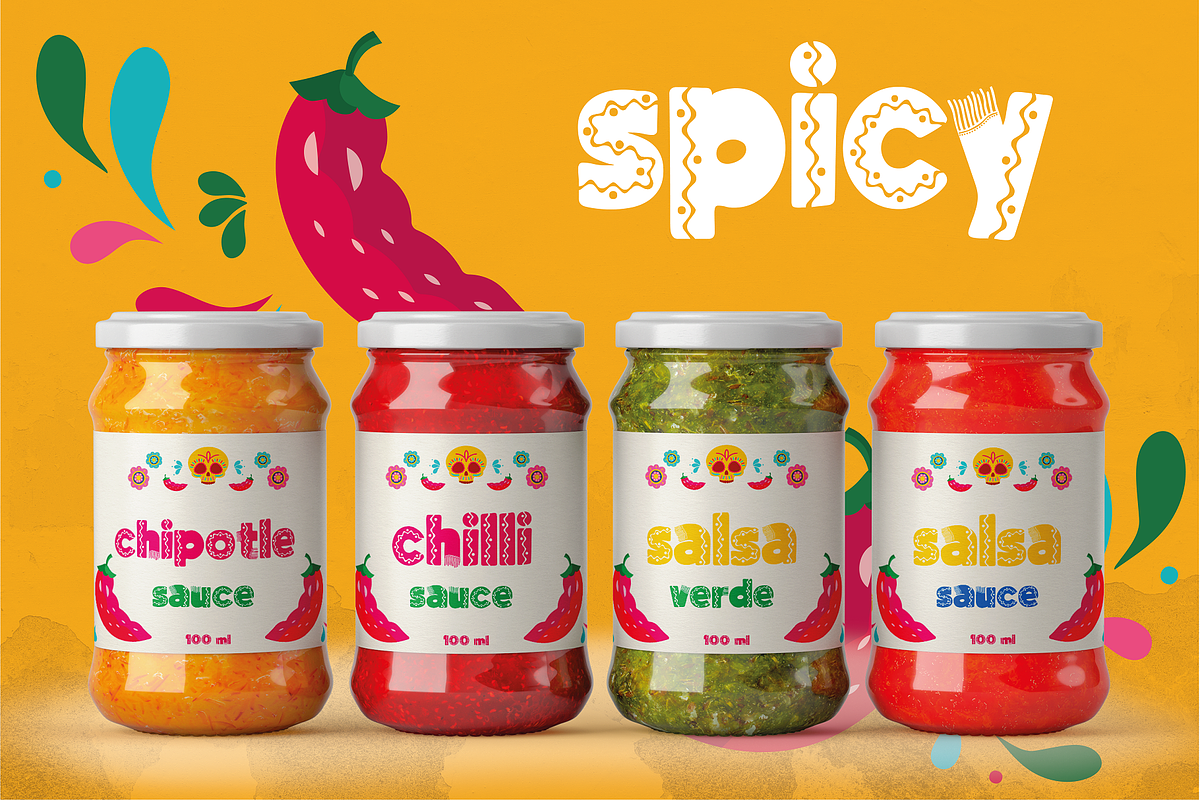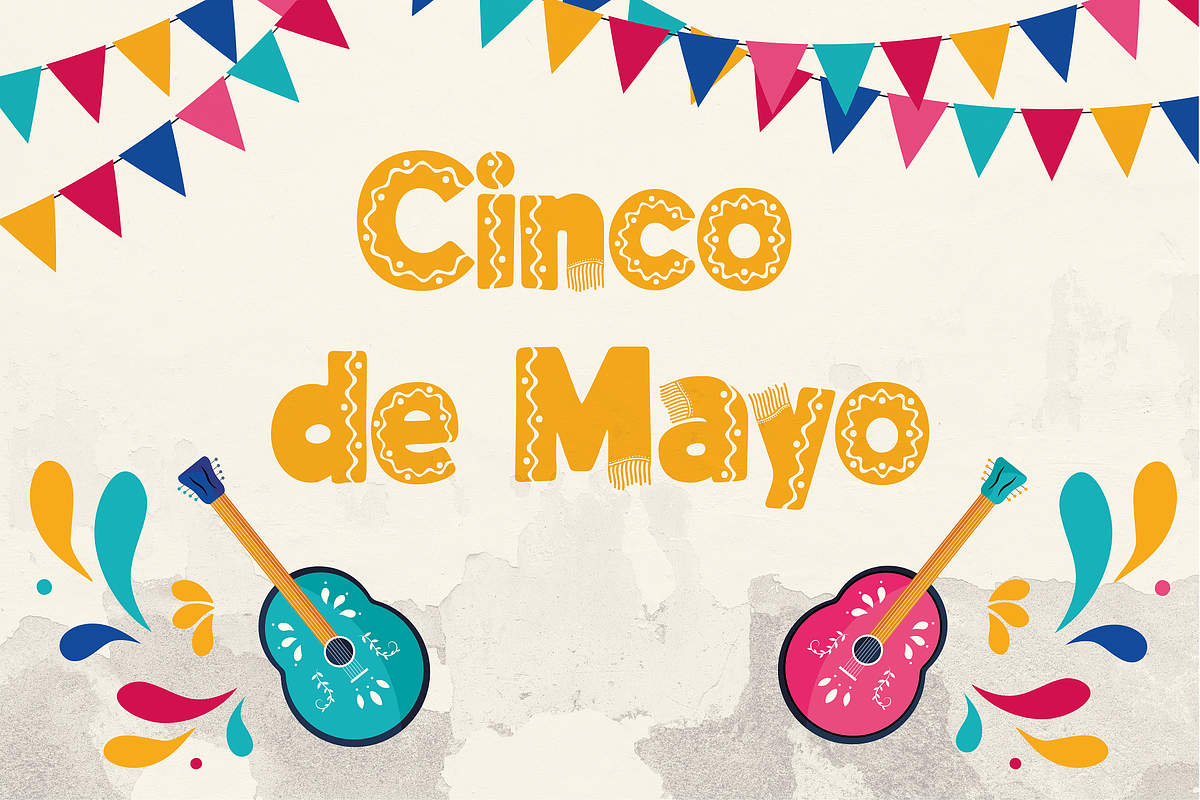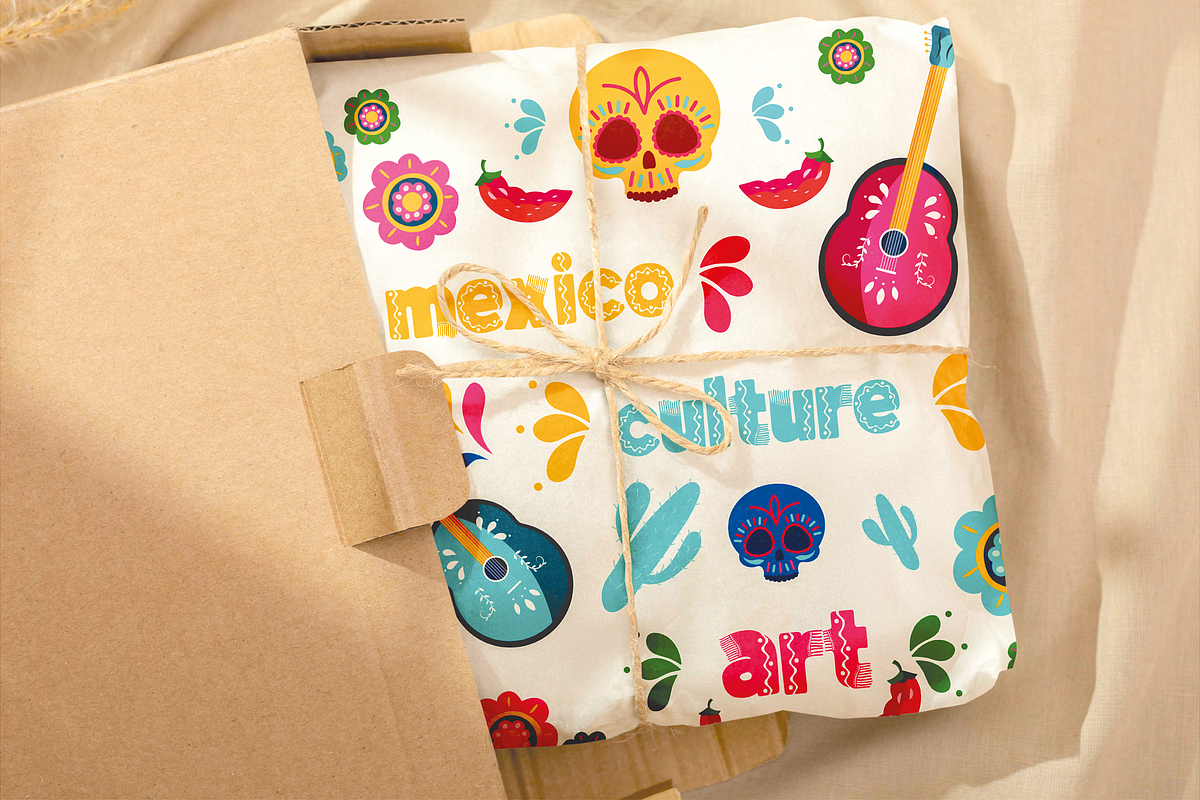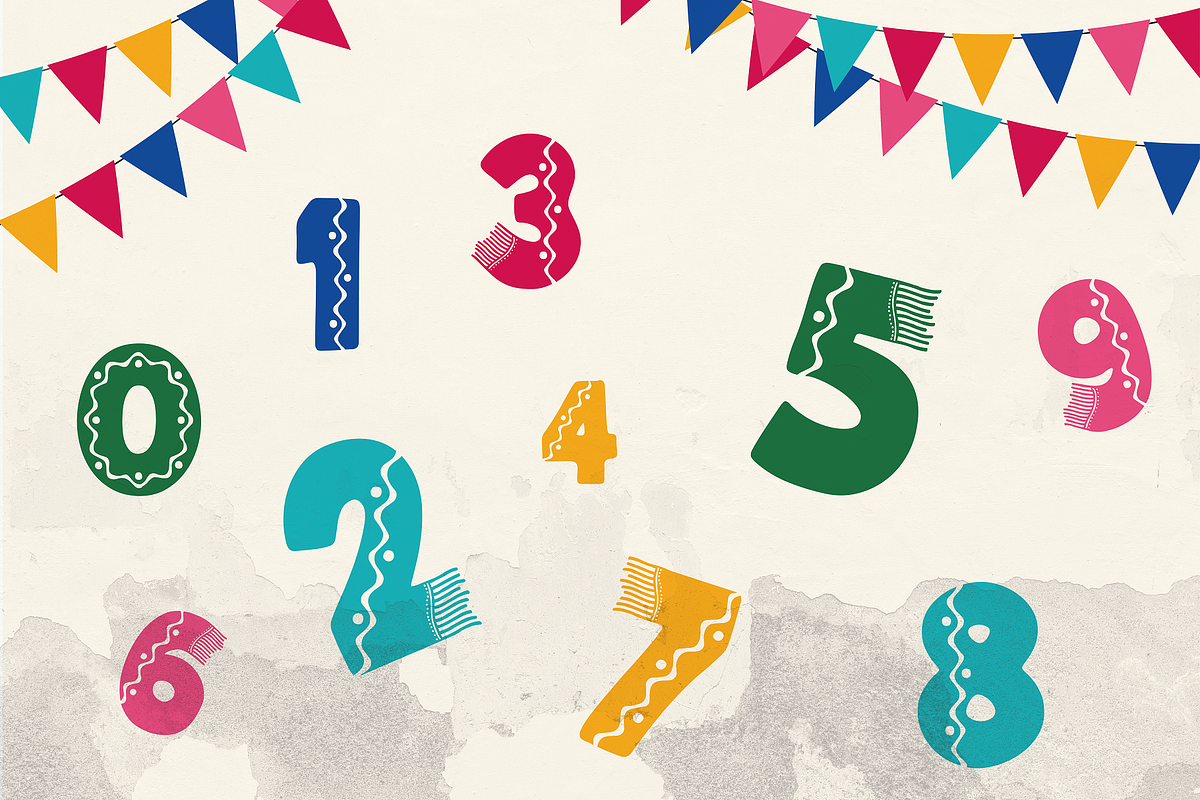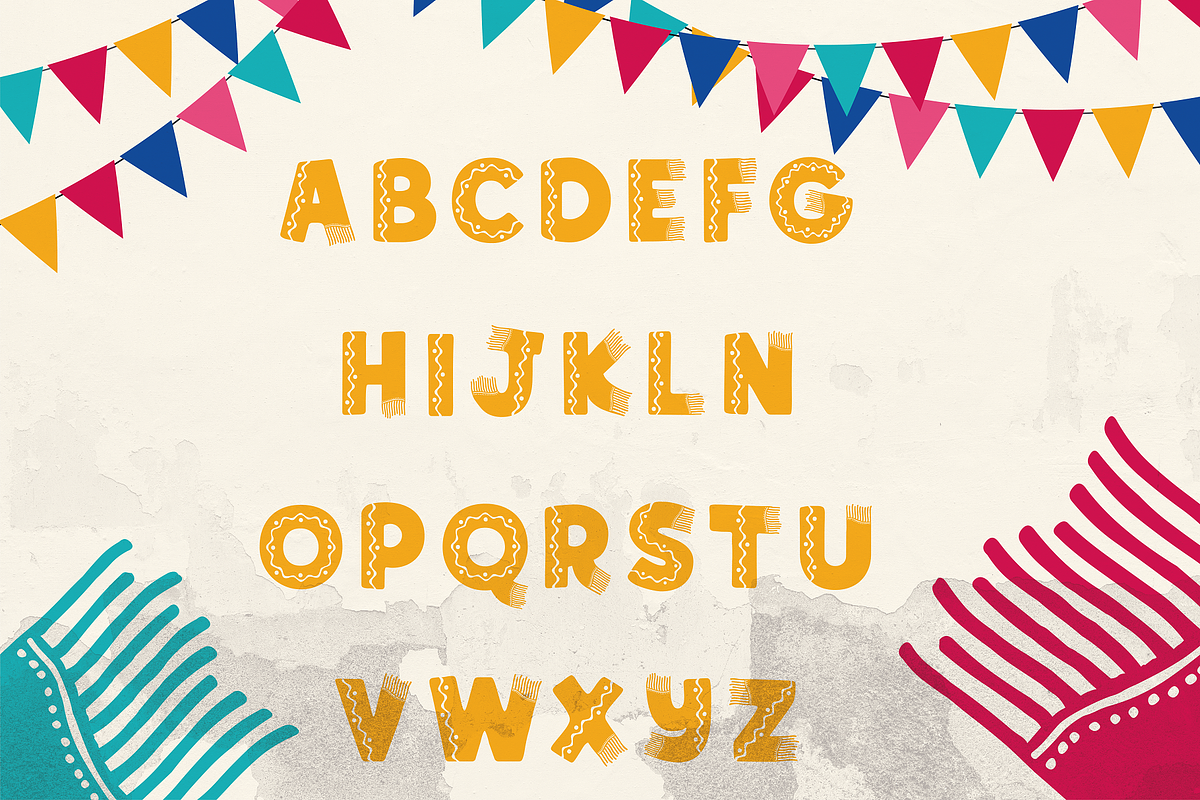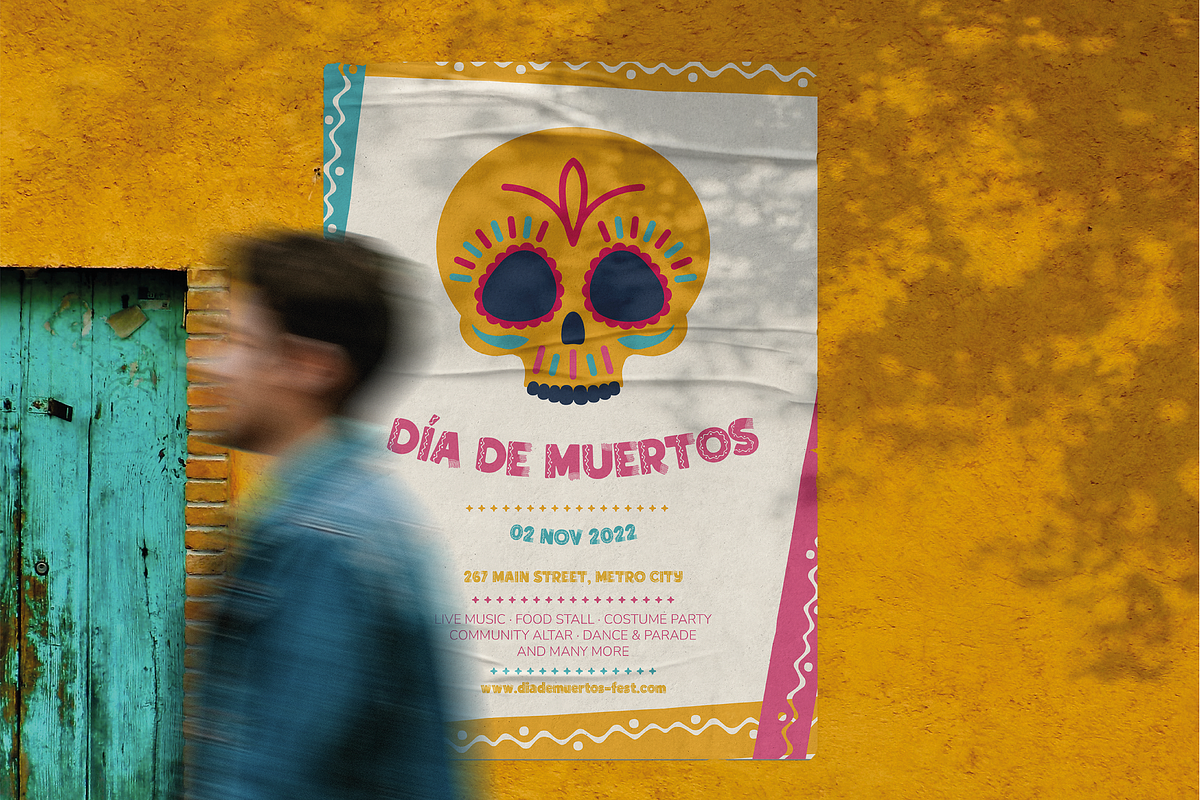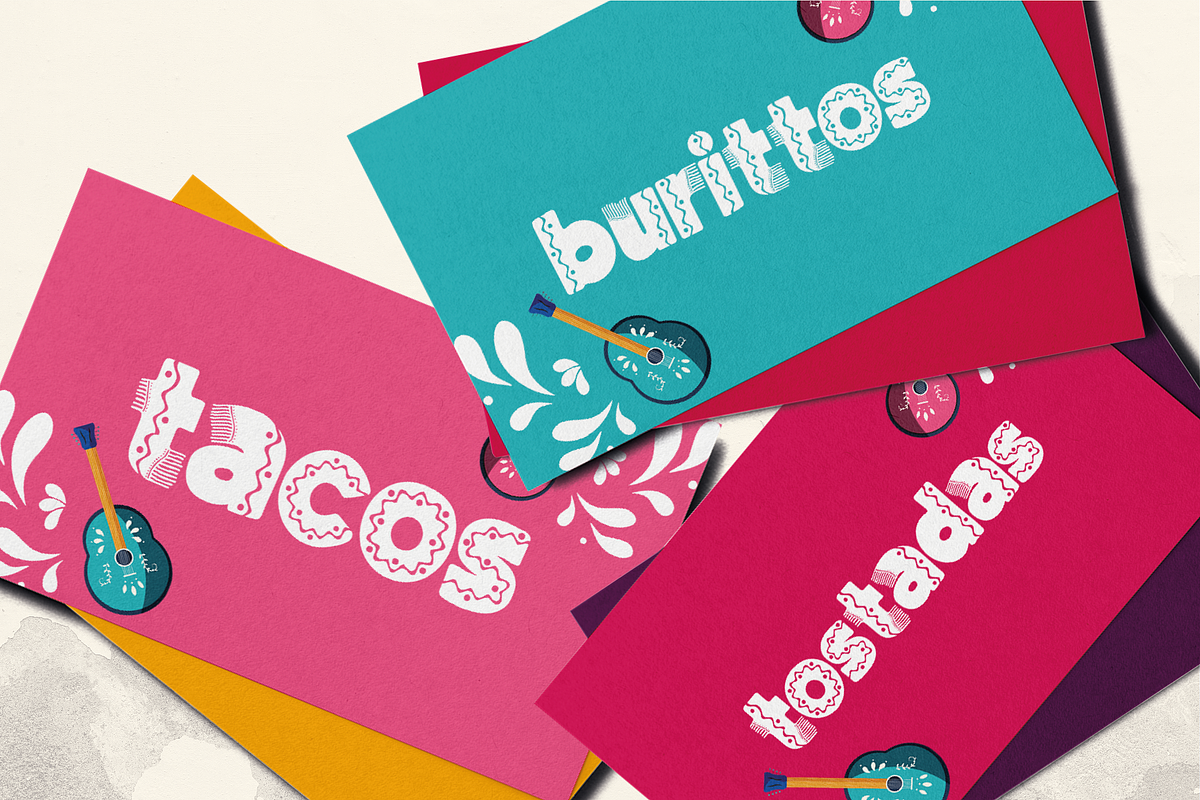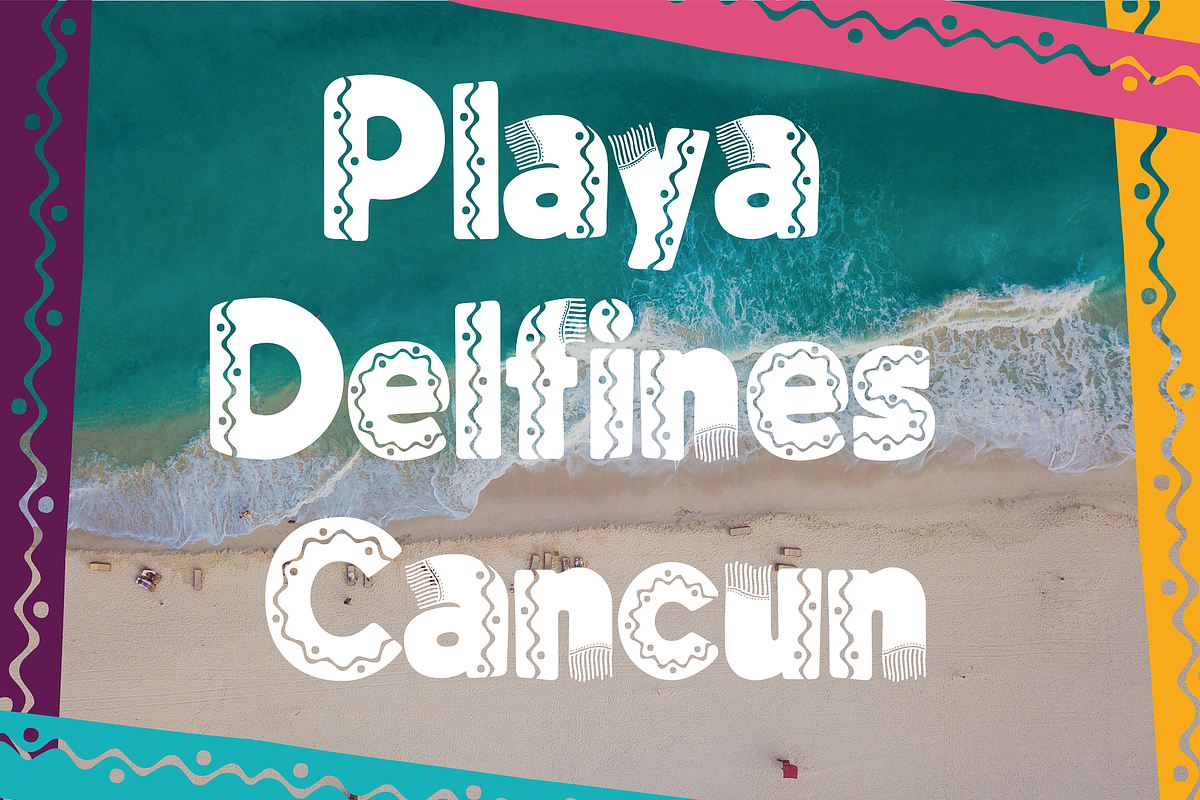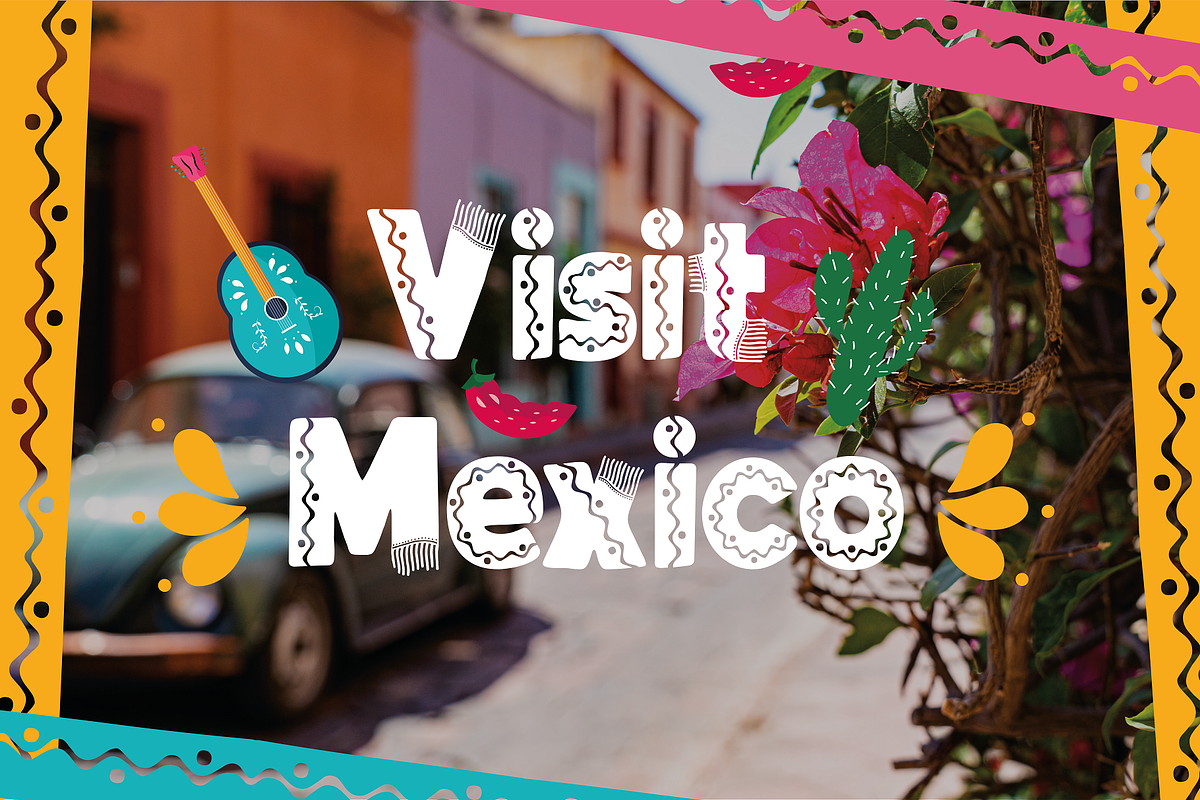
Santiago - Authentic Mexican Type
Santiago is a gorgeous handmade typeface. Each letter was decorated by hand. It took weeks to get everything right and looking beautiful.
You can use Santiago for Mexican themed logos, restaurants, menus, business cards, posters, flyers, invitations, greeting card, advertising, apparel, magazines, etc. The possibilities are endless.
If you're in need of a decorative Mexican culture typeface, then Santiago is for you!